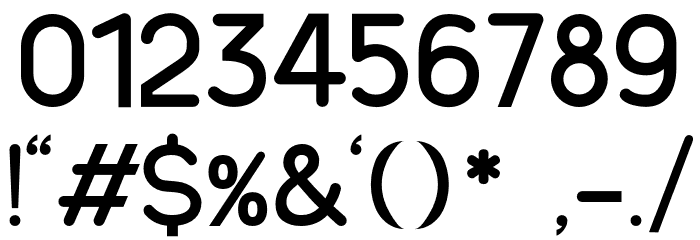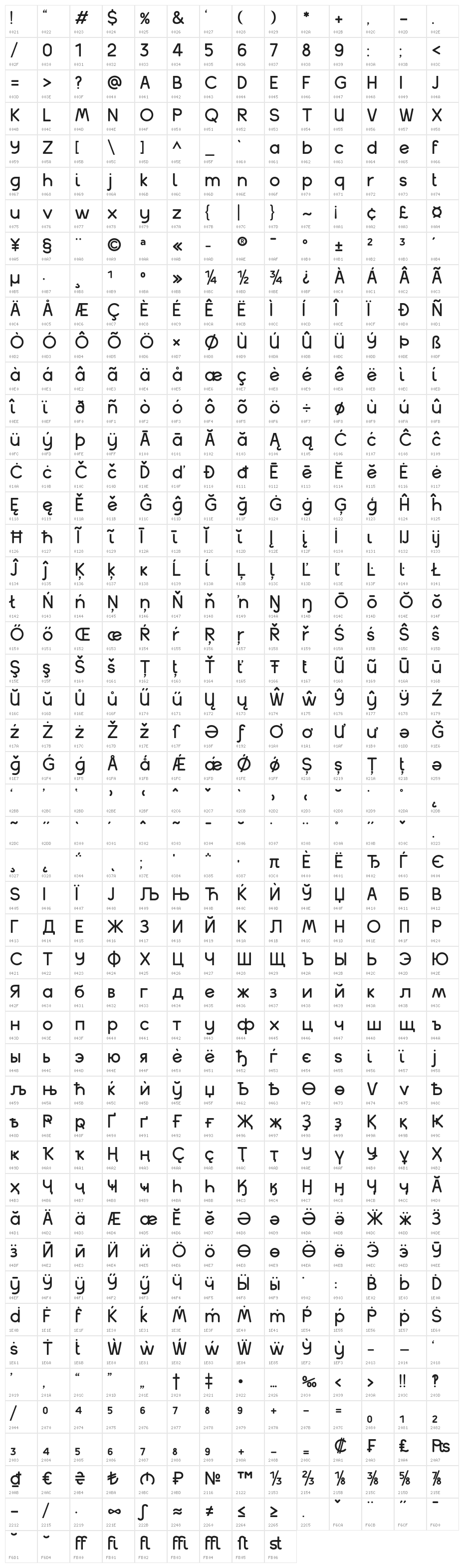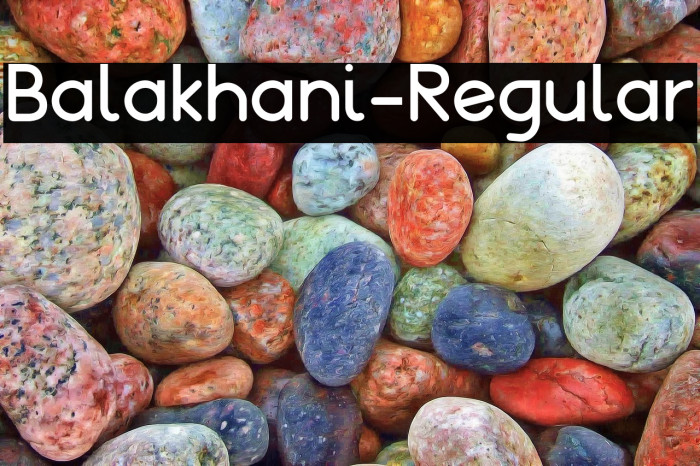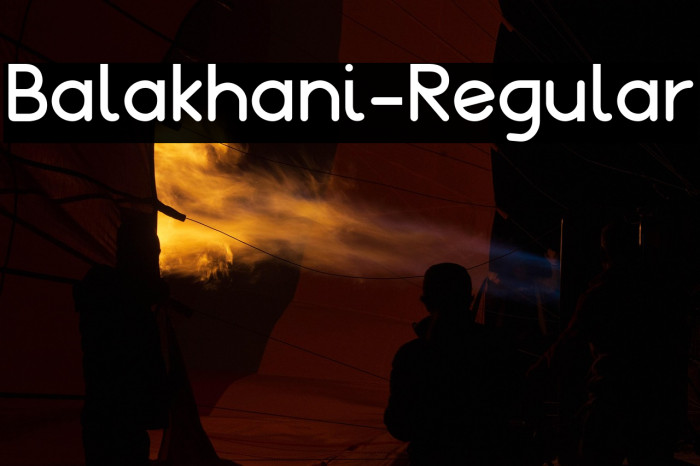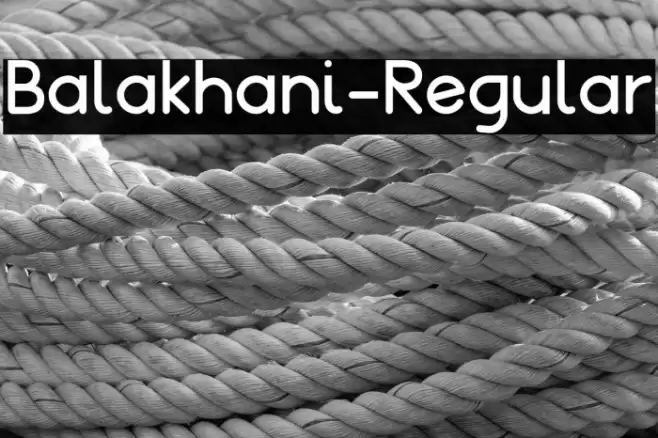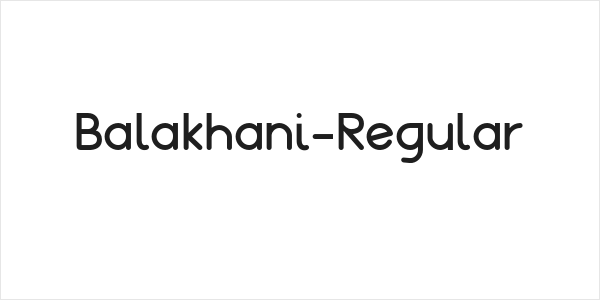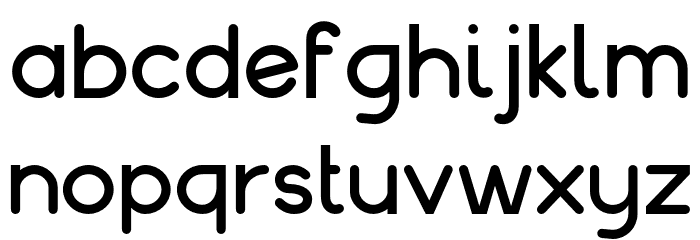
Balakhani-Regular Font
Balakhani-Regular Description
This typeface features a clean and modern design with rounded edges and a uniform stroke width, giving it a friendly and approachable appearance. The characters are well-proportioned, with a consistent height and width that ensures readability across various sizes. The uppercase letters are bold and assertive, while the lowercase letters maintain a softer, more casual feel. The numerals are clear and distinct, making them suitable for both display and text purposes. Special characters are designed with the same rounded aesthetic, ensuring a cohesive look throughout the font.
| Proposed Projects | Ideal for branding, web design, advertising, and packaging projects that require a modern and approachable look. |